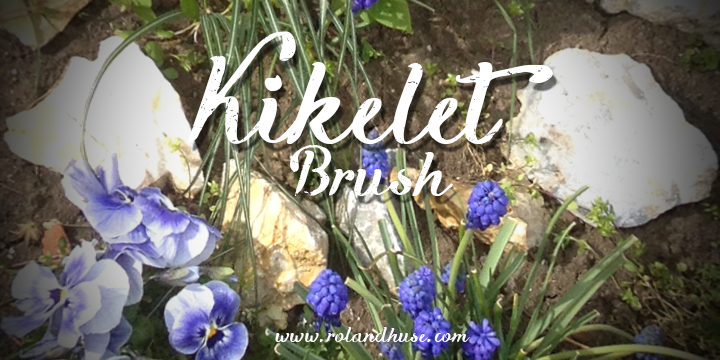
Font name: | Kikelet Brush |
KIKELET BRUSH is the brush pen sketch version of a spring-inspired new script font I am currently working on. "Kikelet" it means Spring in Hungarian. Free for personal use only. For commercial use please donate or contact me via myhandwritings@gmail.com Also if you have character / language extension requests, any questions or feedback. You MAY NOT sell this font or claim them as your own. You MAY NOT edit or rename this font. You MAY NOT redistribute this font. Thank you & I hope you like this font, Roland http://www.rolandhuse.com https://www.facebook.com/pages/Runes-And-Fonts/123221817784772 |